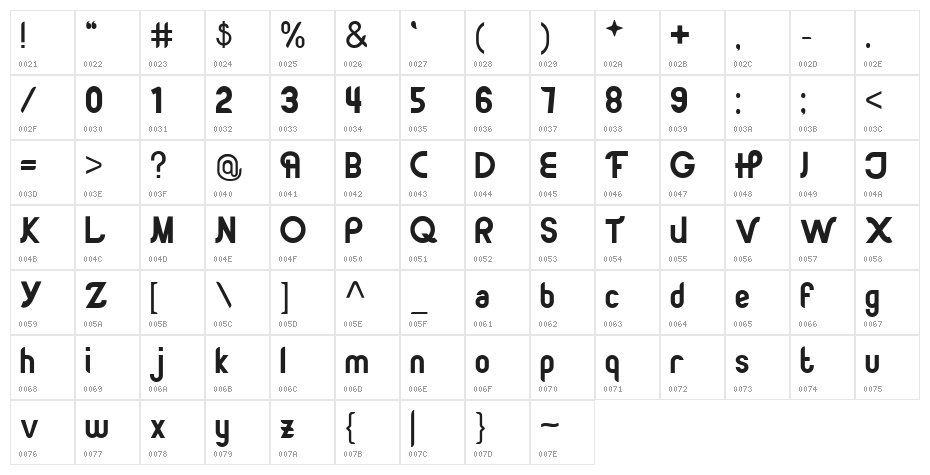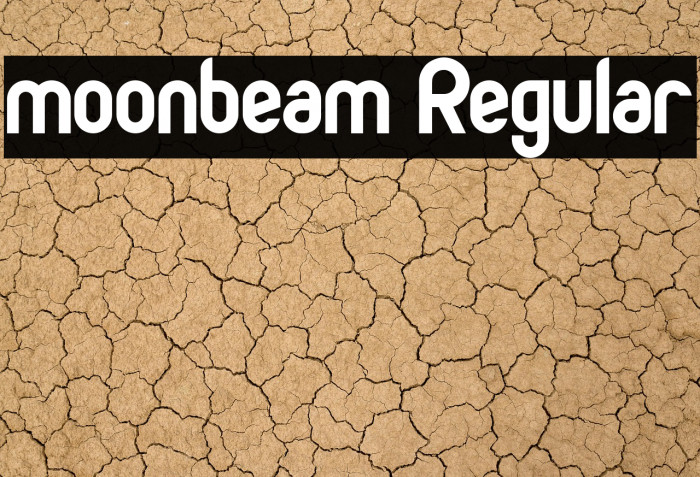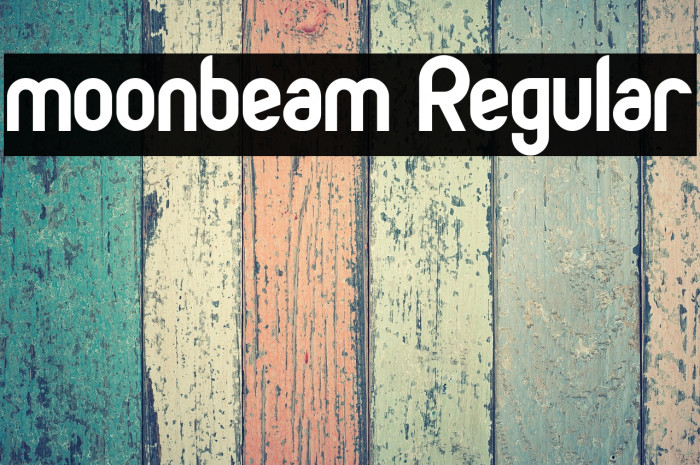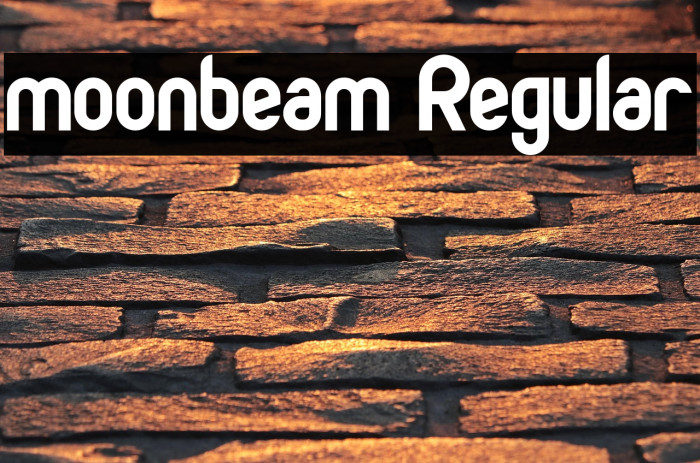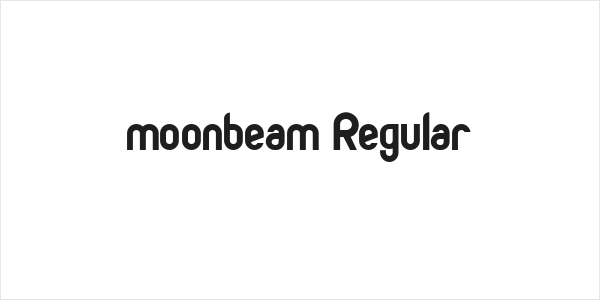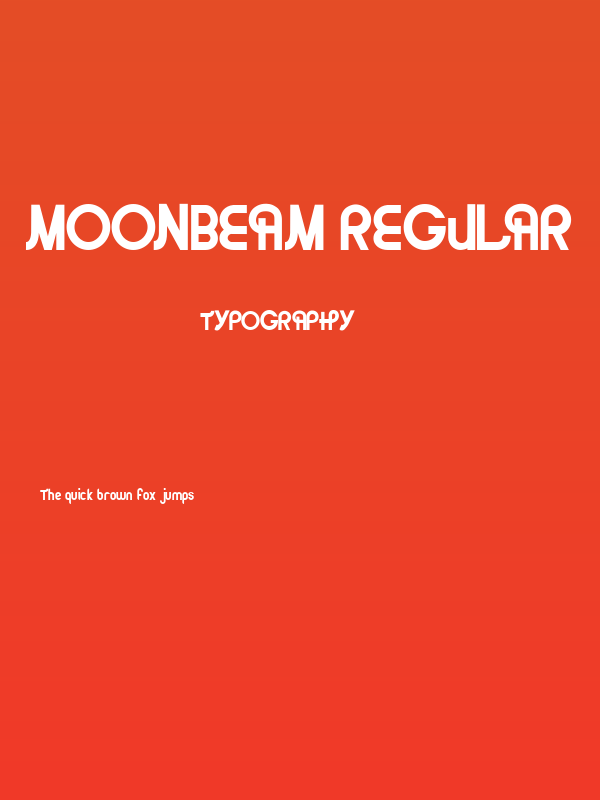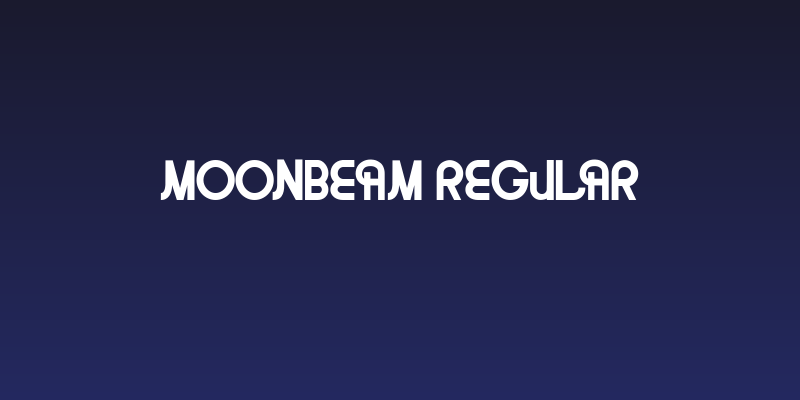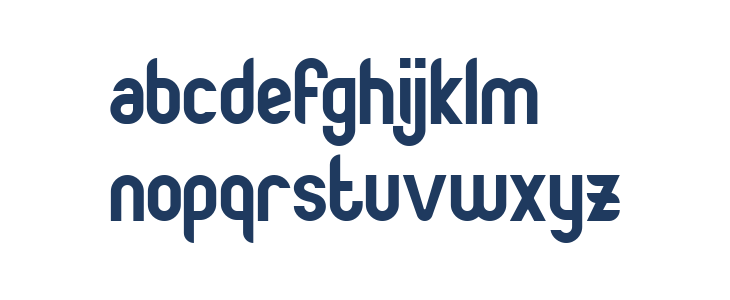
moonbeam Regular Font
moonbeam Regular Description
This font features a bold and modern design with a unique geometric flair. The uppercase letters are characterized by their strong, thick lines and rounded edges, creating a sense of stability and approachability. The lowercase letters maintain a consistent style, with smooth curves and a slightly condensed form that enhances readability. Numbers are designed with the same boldness, ensuring they stand out clearly. Special characters are crafted with attention to detail, matching the overall aesthetic of the font. This typeface is ideal for projects that require a contemporary and eye-catching look.